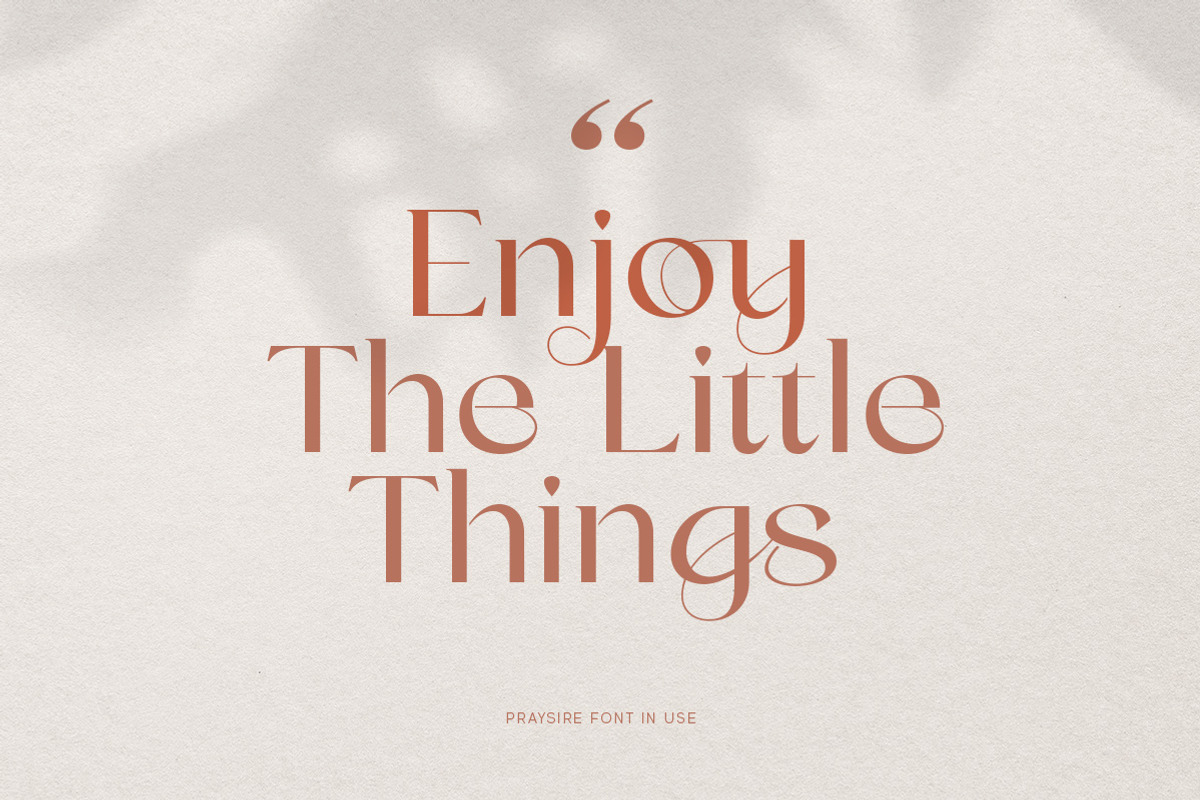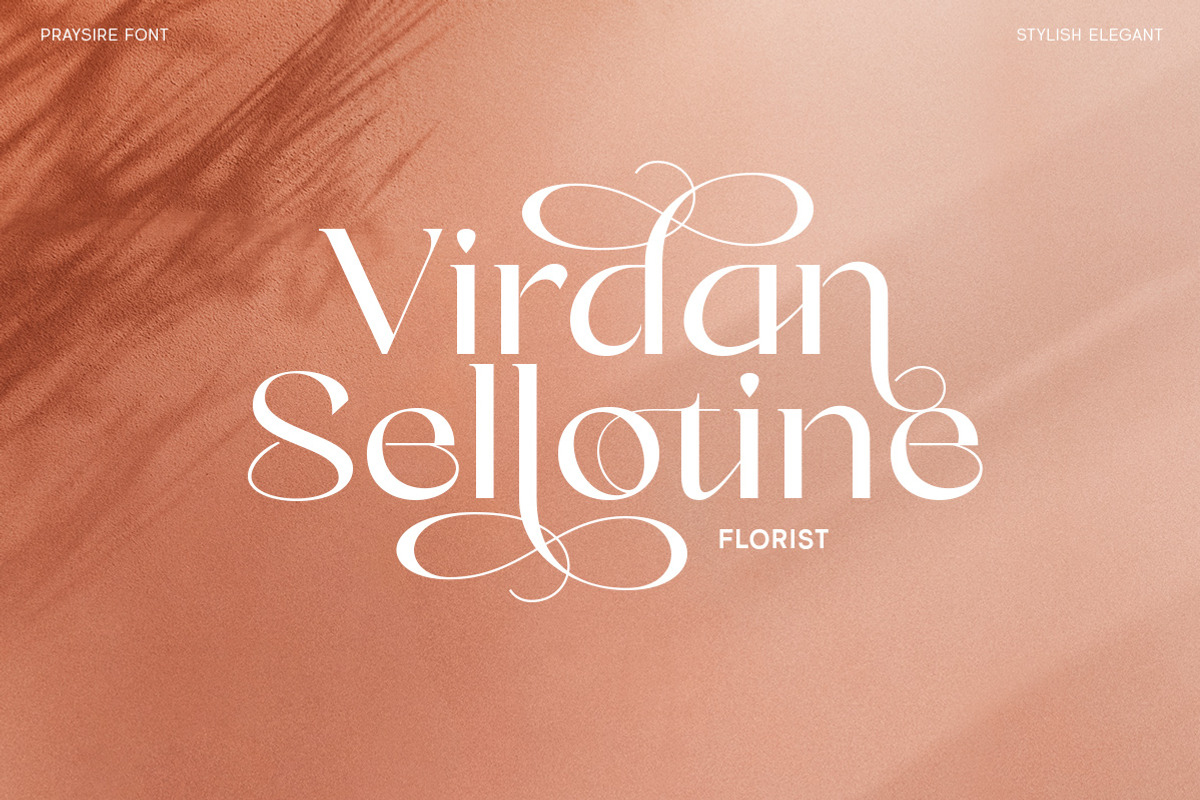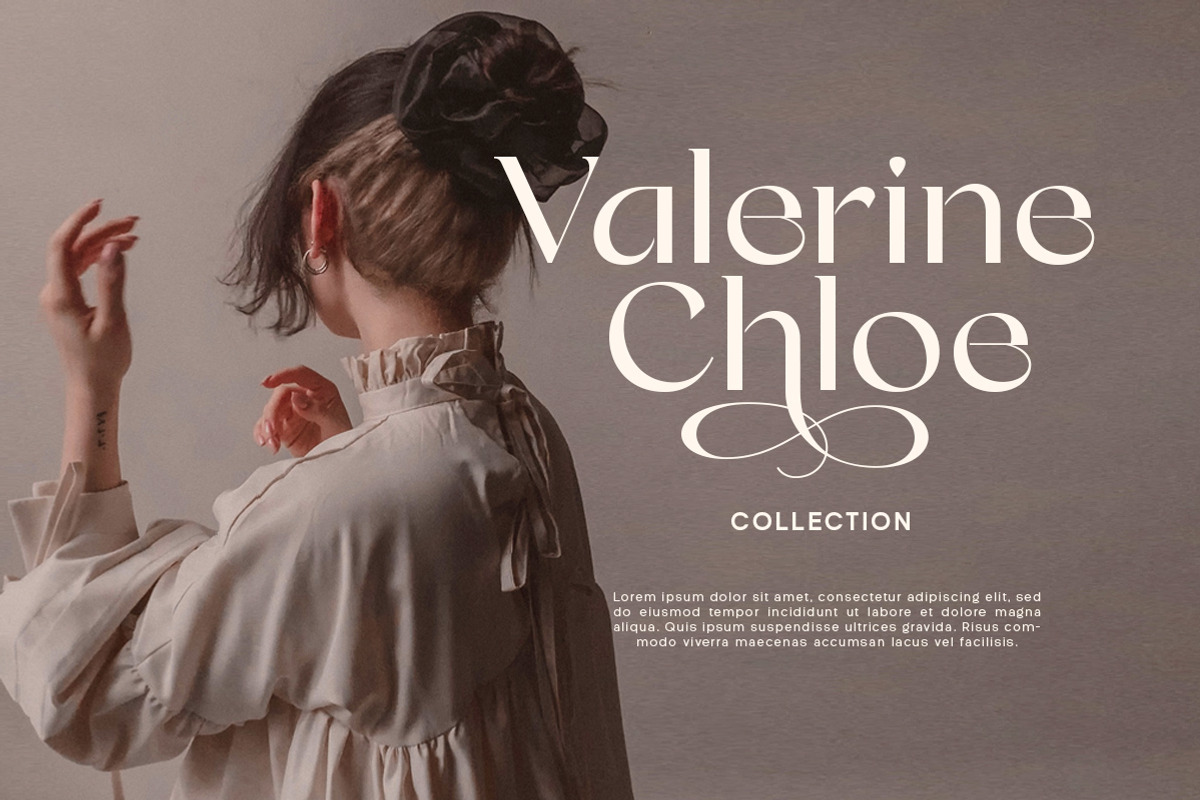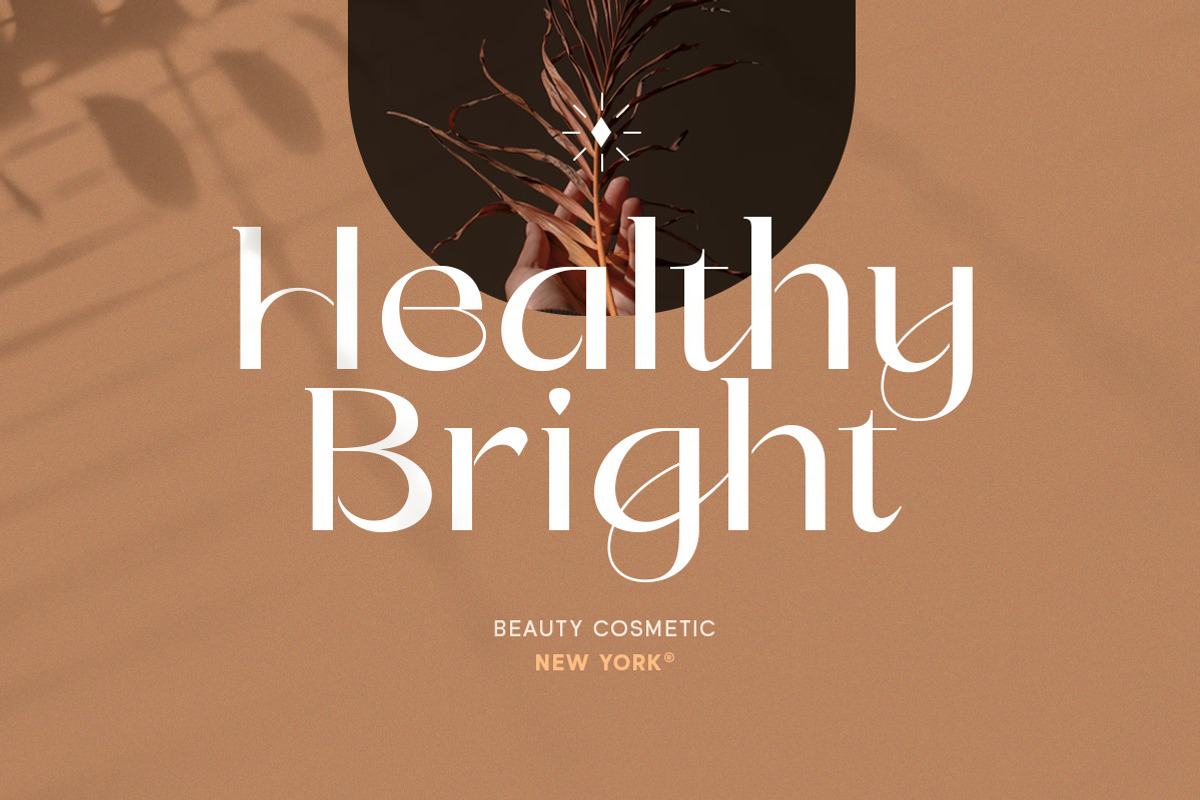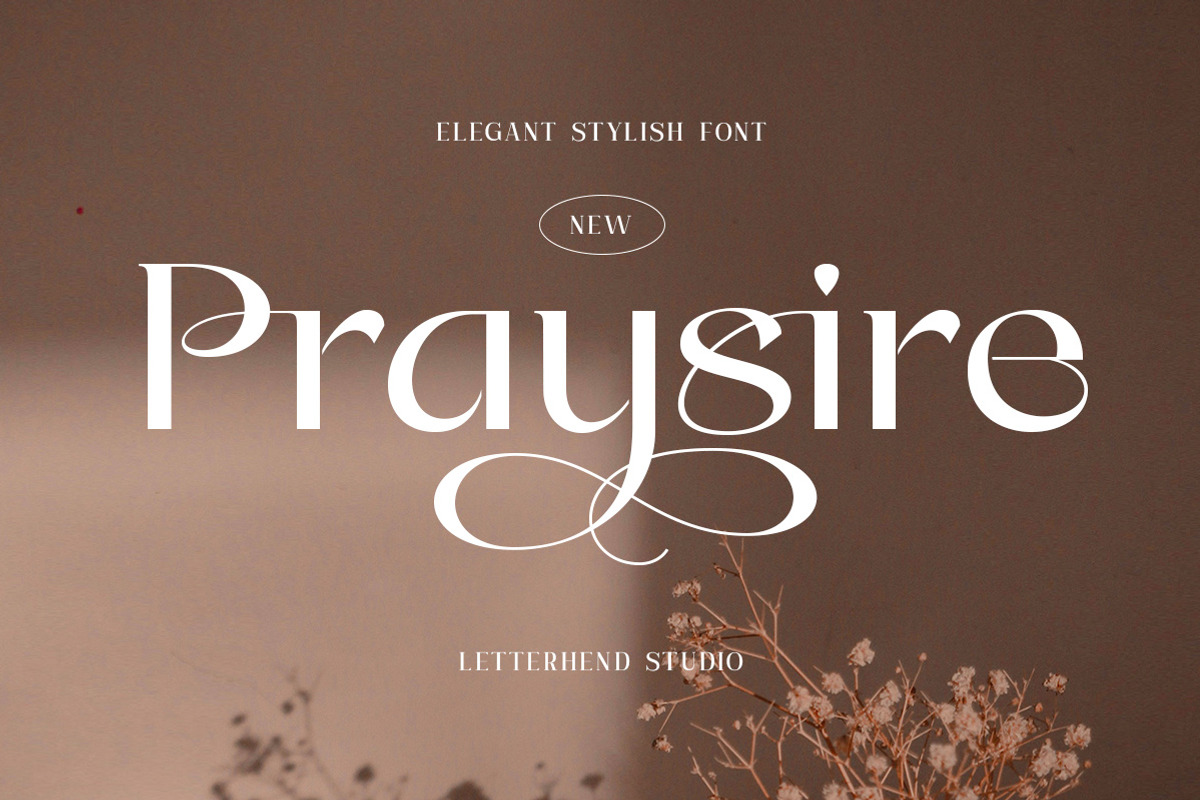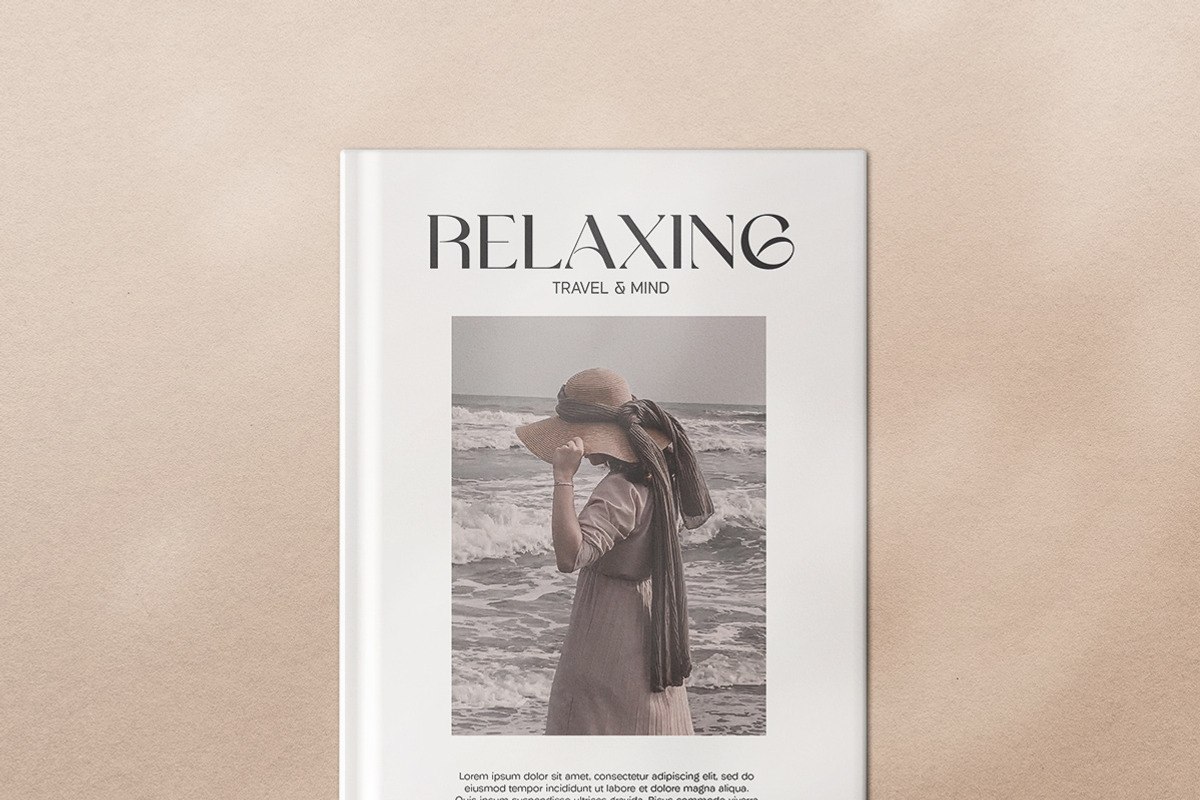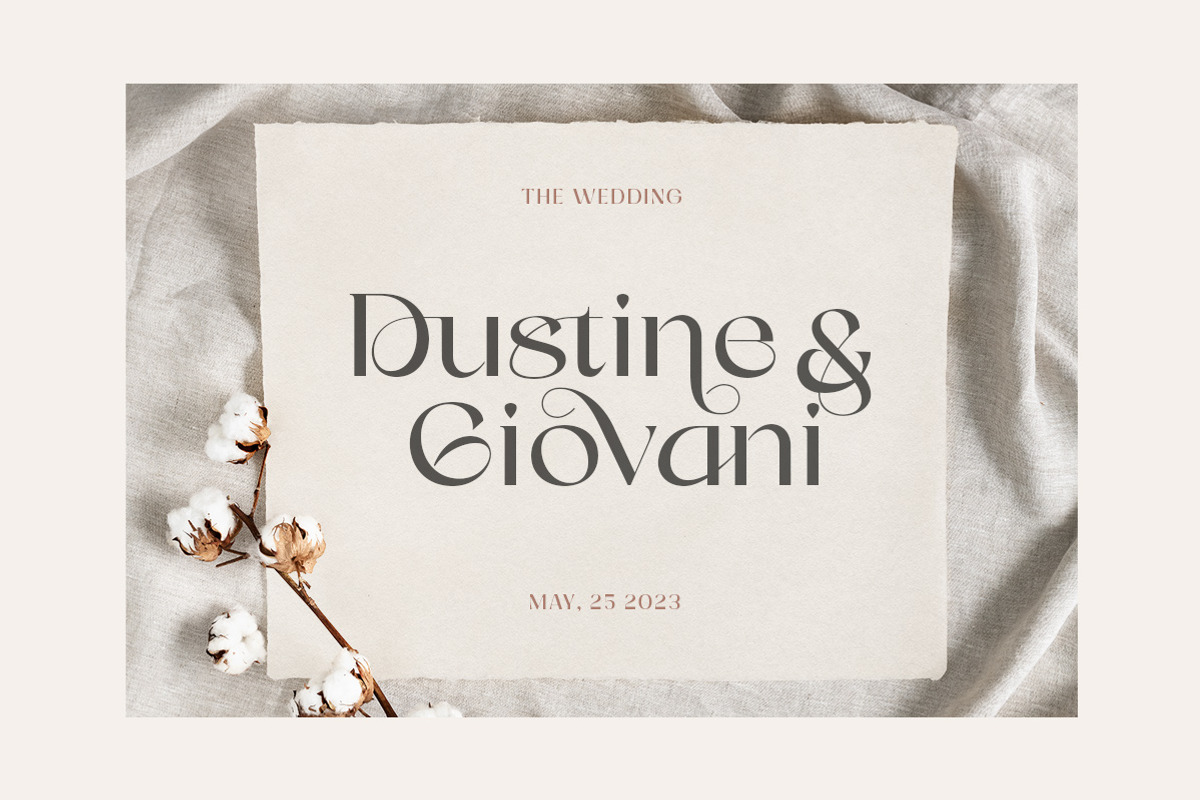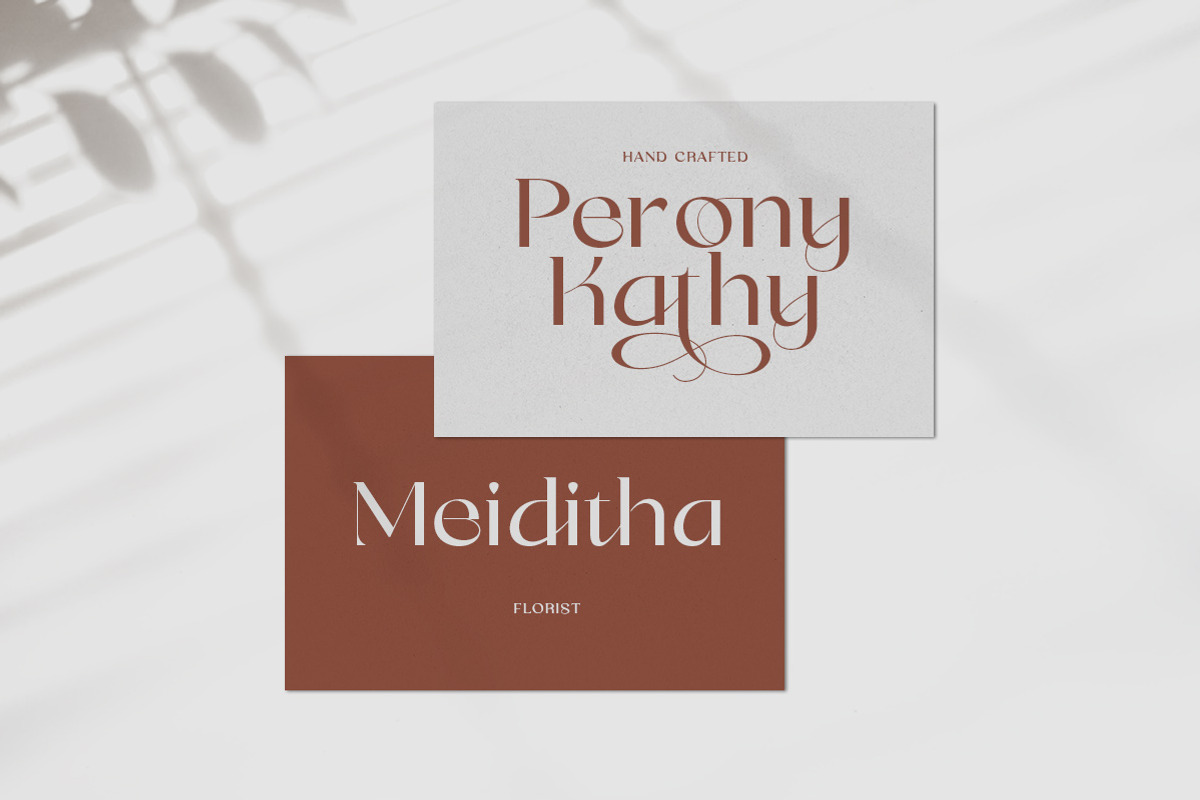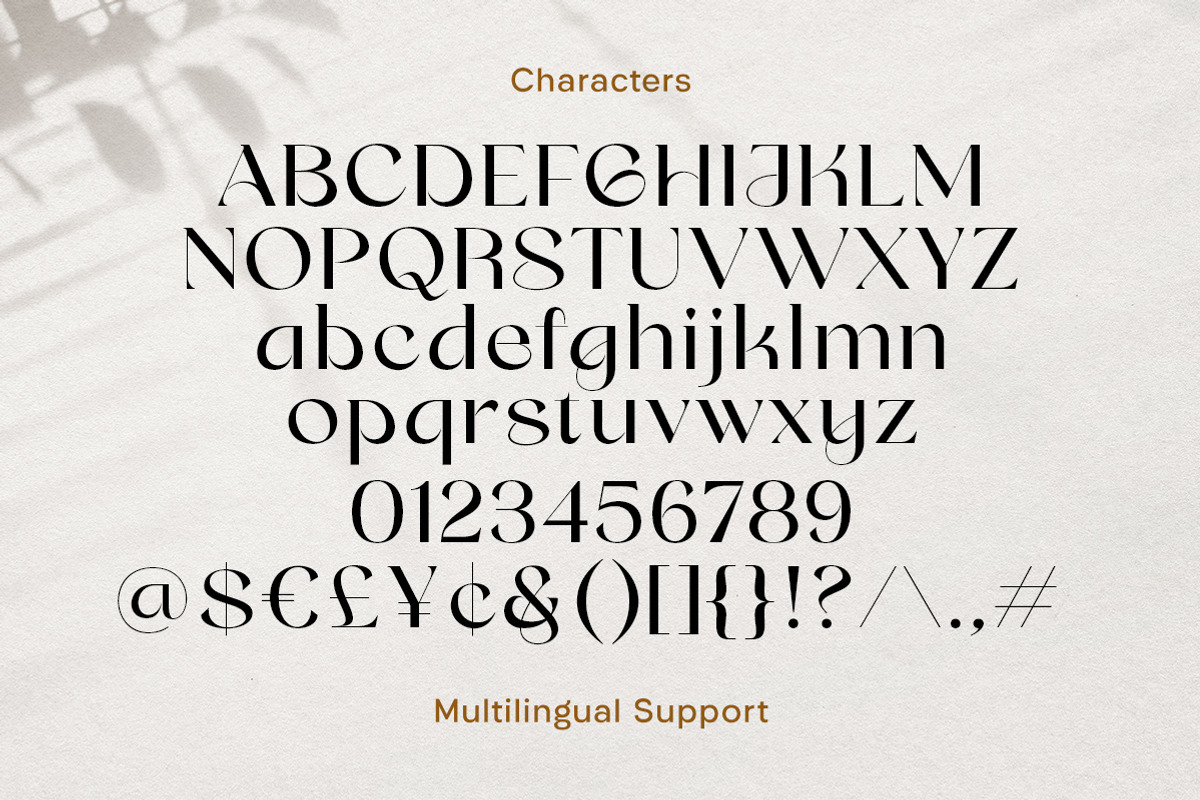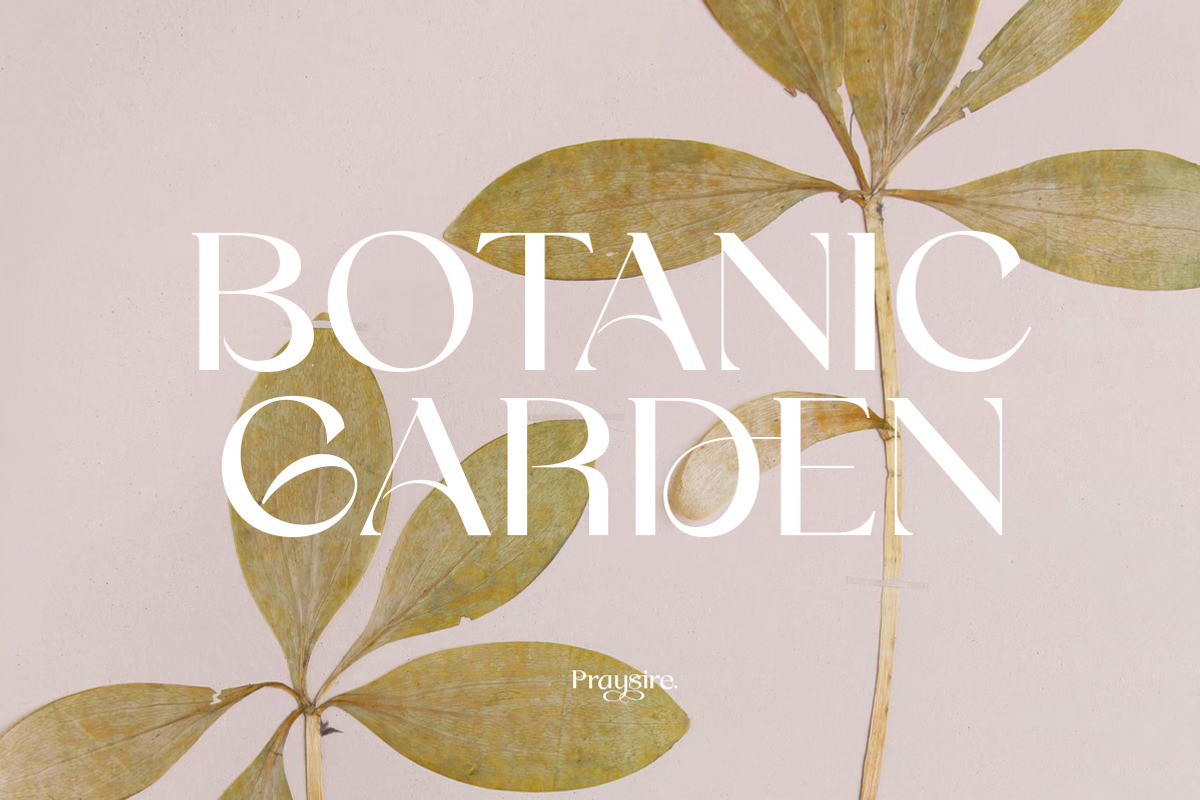
Praysire - Elegant Stylish Font
Praysire is a sophisticated sans serif with beautiful swashes. It has many alternates which you can play around to match your project, whether for a standout headline, or for a tagline, you name it. The unique letterform makes this font one of a kind! Perfectly to be applied to the other various formal forms such as invitations, labels, logos, magazines, books, greeting / wedding cards, packaging, fashion, make up, stationery, novels, labels or any type of advertising purpose.
- multilingual alternates & ligatures